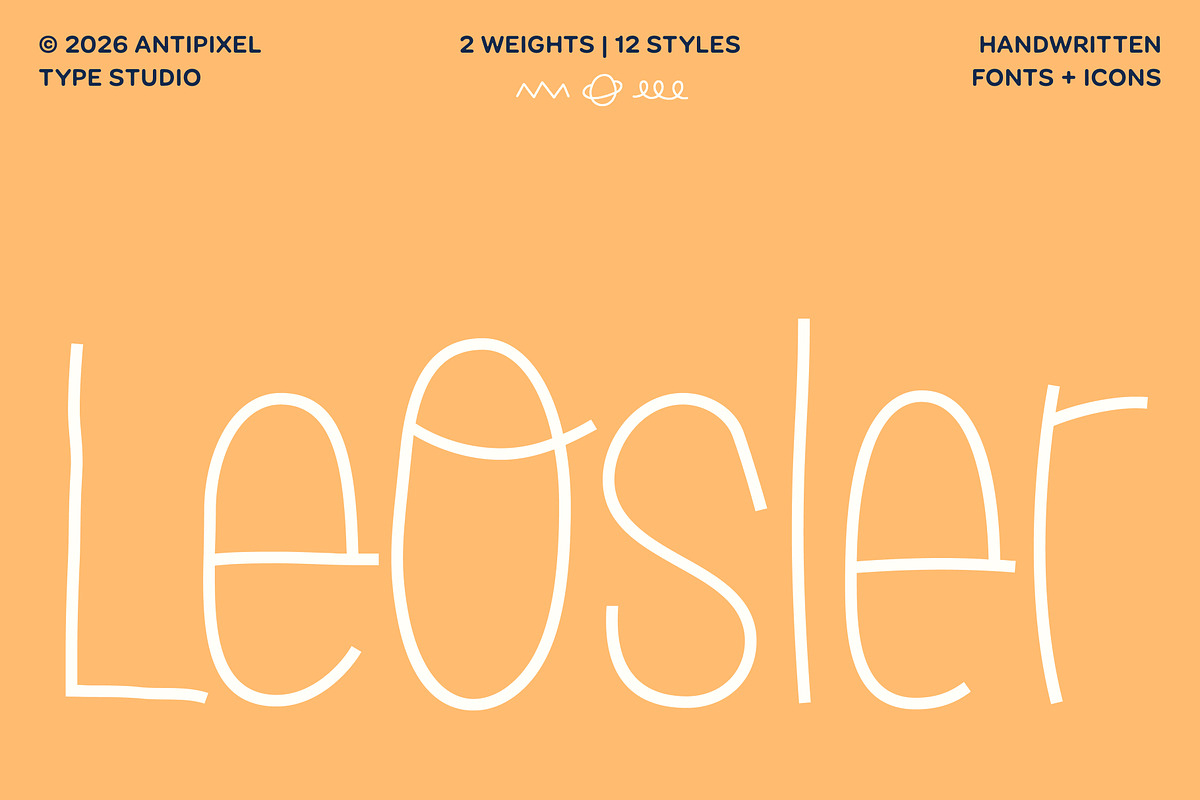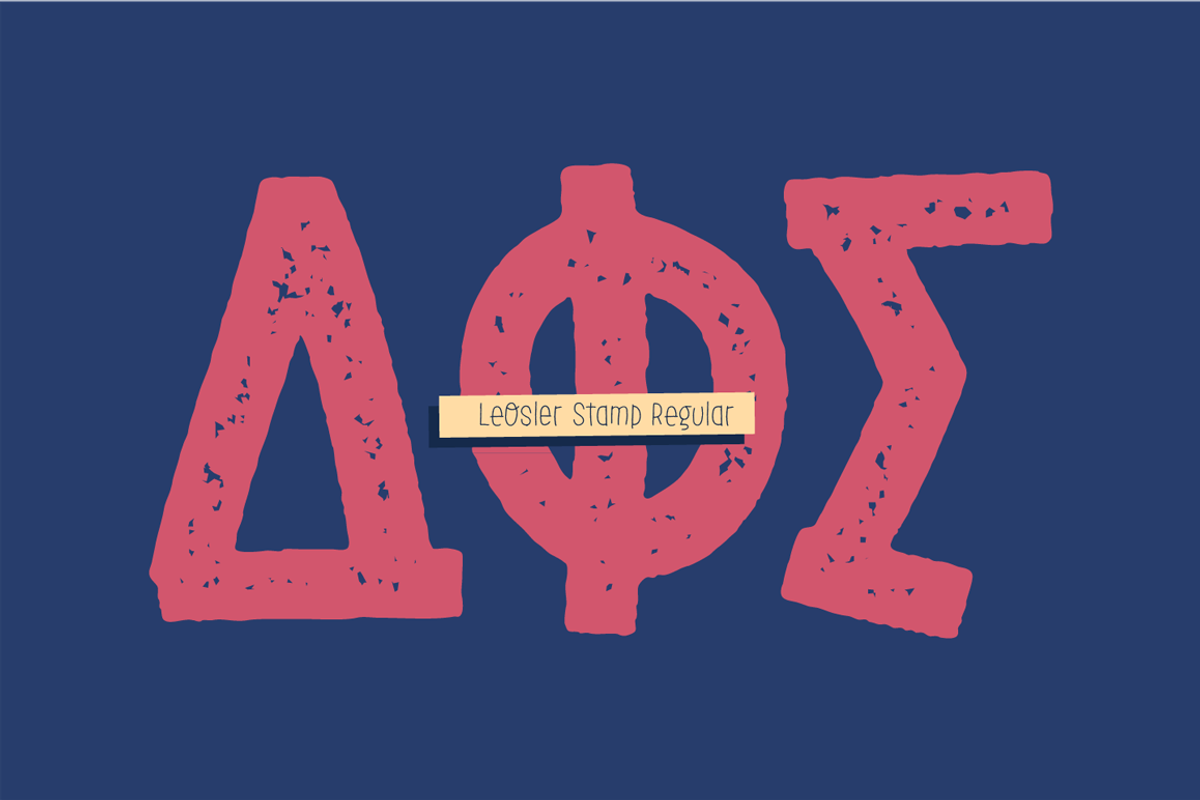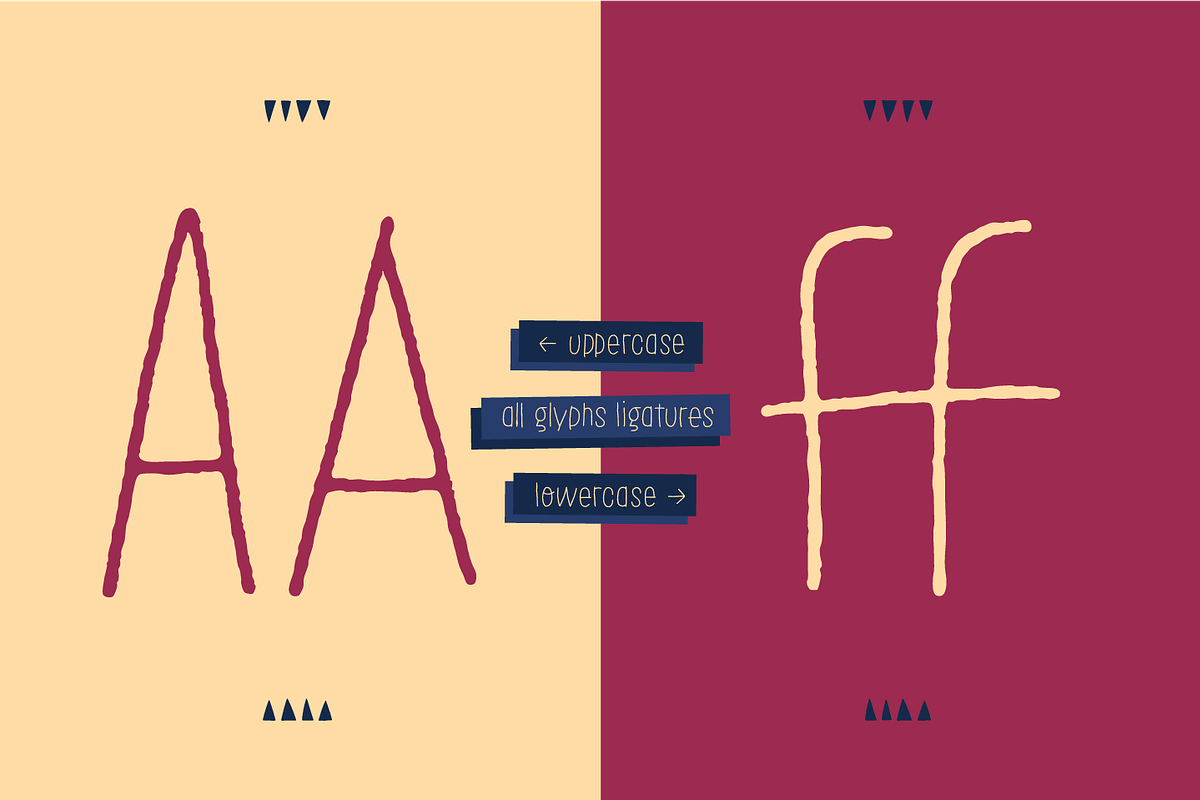
LeOsler | Playful Doodle Handwritten
LeOsler is a decorative, fun, handwritten font that includes the Latin, Greek and Cyrillic alphabets, and can be used in a wide range of languages, including English, Spanish, Italian, French, German, Polish, Czech, Vietnamese, Russian, Greek, among many others.
Its OpenType features include ligatures for all repeated characters in upper & lowercase, contextual alternates for all supported alphabets, 4 ampersand alternates, scientific superior/inferior figures, fractions, etc.
LeOsler also offers a set of icons that will provide a much more personal look to your work! Available in Regular and Light weights, and Rough and Stamp styles, for a perfect match with the font styles.
Uppercase & lowercase.
Numbers, punctuation, ligatures, arrows, emojis, case-sensitive characters, monetary and mathematical symbols, and more!
Styles: 12 font styles + 4 icon styles
Glyph Count: 1793
Open-Type features: Contextual Alternates, Stylistic Alternates, Standard Ligatures, Subscript, Scientific Inferiors, Superscript, Numerator, Denominator, Fractions, Ordinals
Kerning available